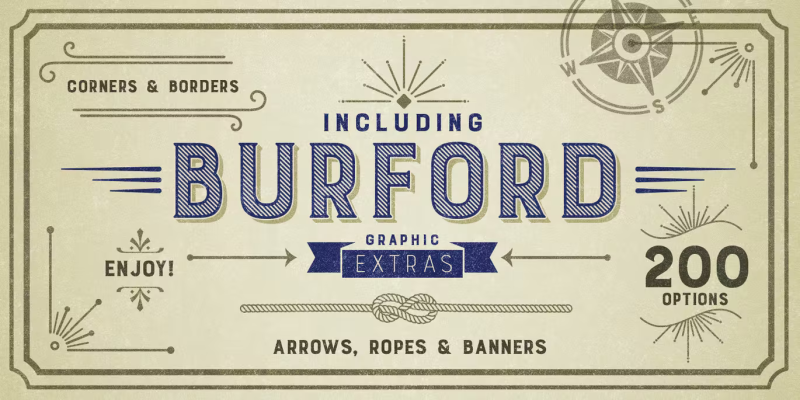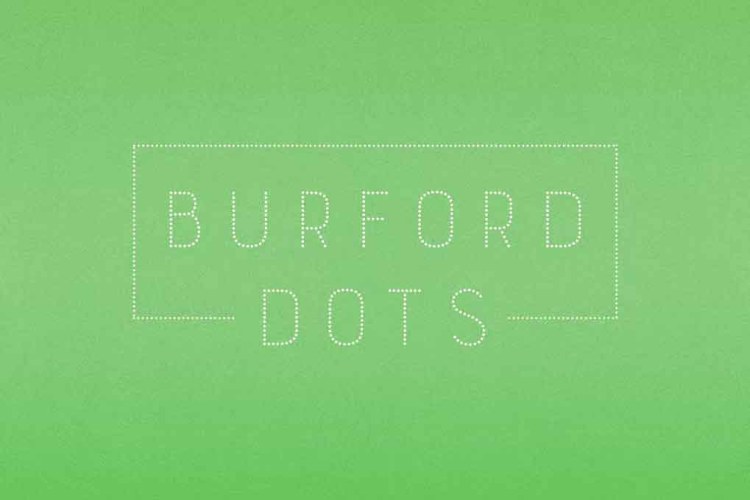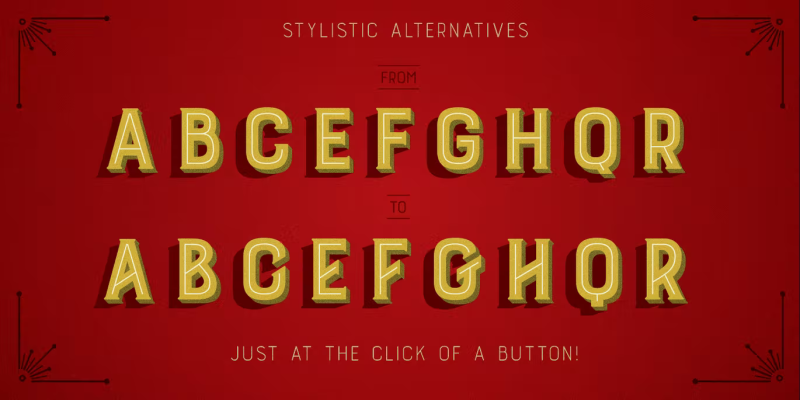
Burford Dots Font
Burford is a font family that I sketched while traveling through Europe. I was mesmerized by all the unique typography that was showcased throughout the five countries I visited. Inspired by all that I had seen, I found myself spending 4-5 hours per day in Amsterdam’s Vondel Park drawing characters. Once back in the states I digitalized Burford, deciding it would make for a beautiful layer-based font.
Burford Pro package comes with all 18 layering fonts including 5 base layers, 3 top layers, 5 bottom layers and 2 sets of graphic elements. They are strategically made to build on top of each other, creating a cohesive and easy to use layer-based family. Each font also comes with a set of Stylistic Alternatives for letters A C E F G H P Q R. Burford Basic package is created for users who don’t have access to premiere design programs (such as Illustrator, InDesign, Photoshop, etc) and are unable to use the layering effect. Burford can still be a powerful tool as each font can also be used on its own. It includes every font file not needed for the layering effect. (Include 13 fonts – Burford Basic, Dots, DropShadow, Extras Set A, Extras Set B, Extrude C, Inline, Line, Marquee, Outline, Stripes A and Stripes B).
The Burford Extras set uses all basic keyboard characters – around 100 total elements per set. They are designed to go specifically with Burford and complement its varying styles perfectly. The set includes: banners, borders, corners, arrows, line breaks, catchwords, anchors and many more!